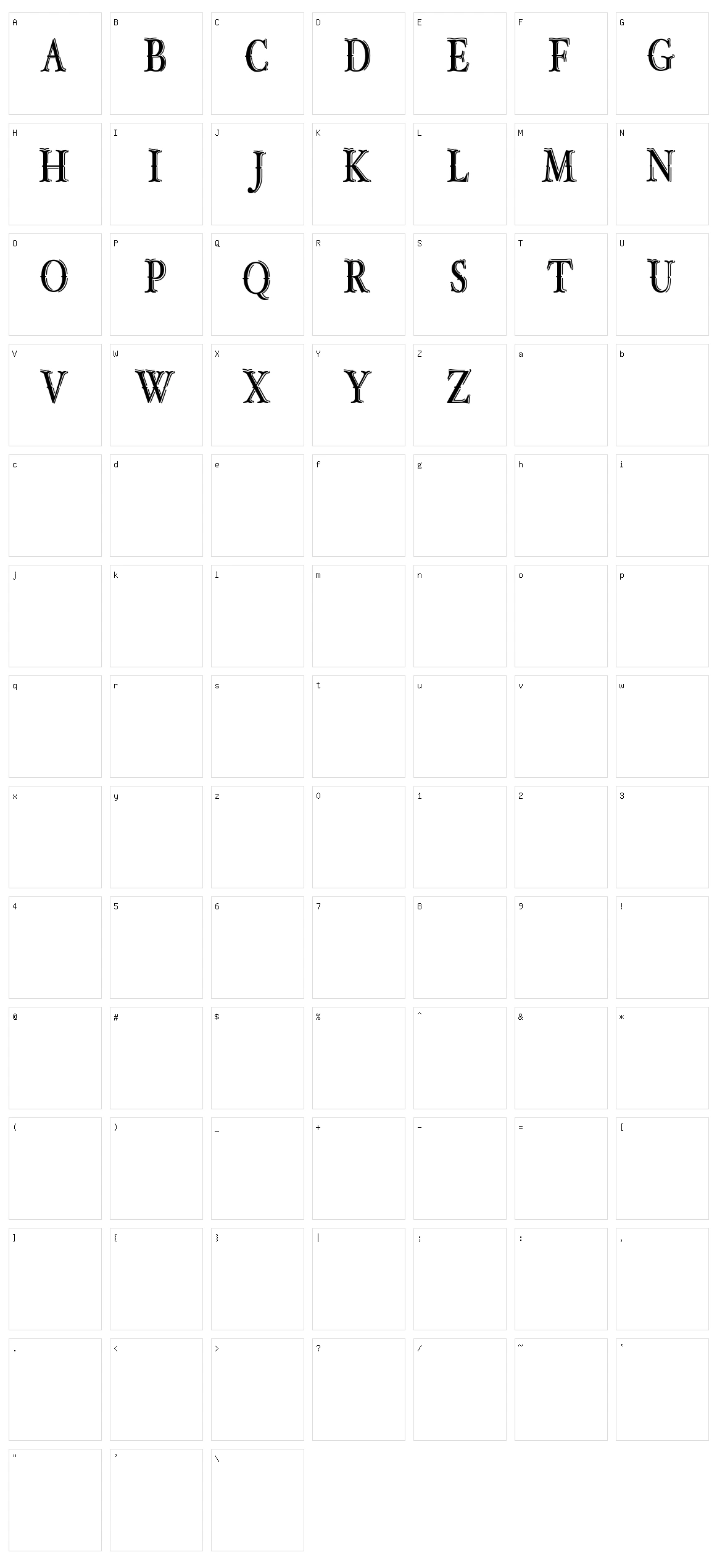
The free font Old Bob Junior is carefully designed by fontsandfashion, showcasing a thoughtful balance of creativity and usability and falls under the Western font style. When you download the ZIP file, it contains only 15.4 KB of font files, making it lightweight and quick to download. Please review the license details below to understand permitted usage and distribution rights. If license information is not available, we recommend using this font for personal projects only or contacting the author directly for commercial usage permissions.